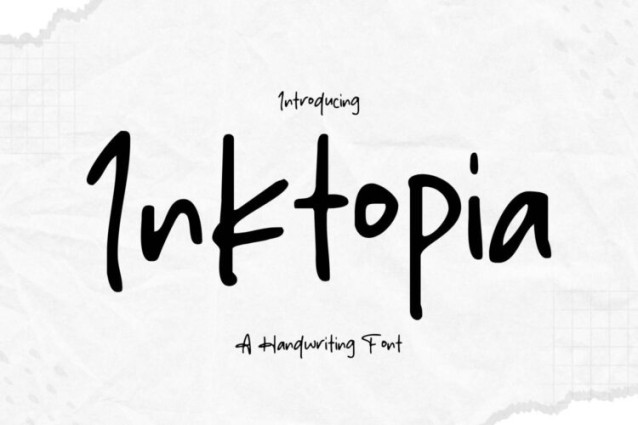
Inktopia Font
Inktopia Font is a simple and friendly handwritten font. Its natural and unique style makes it incredibly fitting to a large pool of designs. The only limit is your imagination!